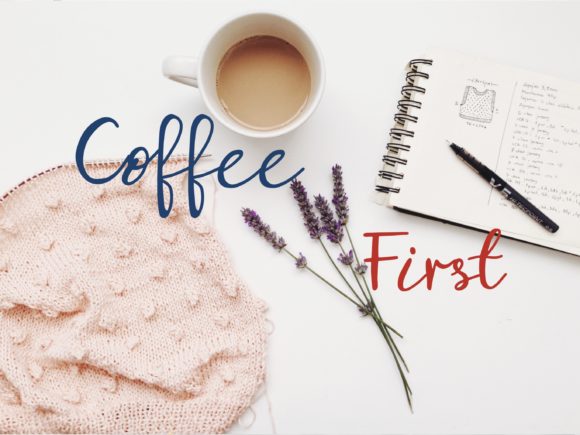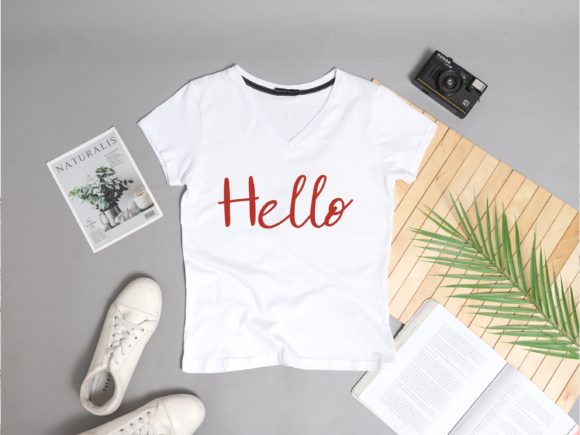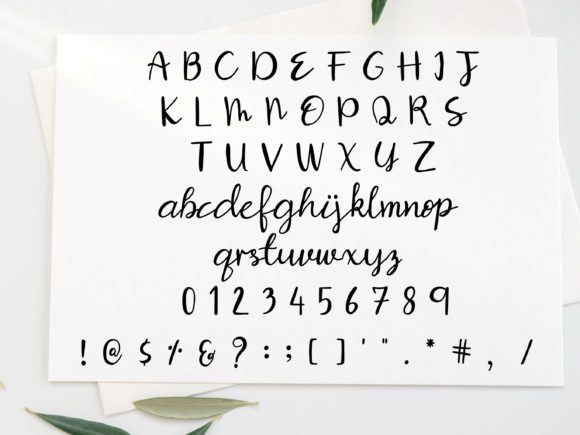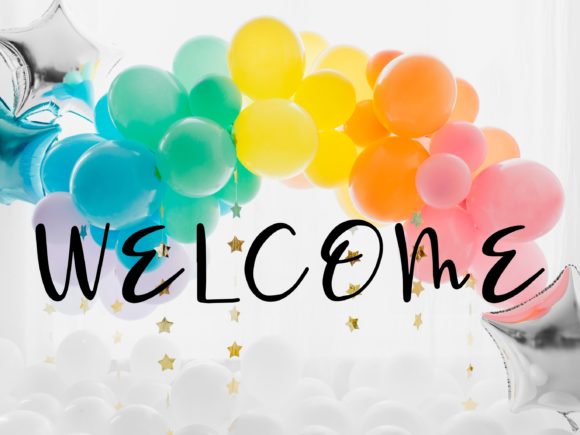
Unicorn Font
About Unicorn Font
Unicorn is a simple lettered, joyful and beautiful script font. Fall for its ravishing style and use it to create gorgeous wedding invitations, beautiful stationary art, eye-catching social media posts, and much more!